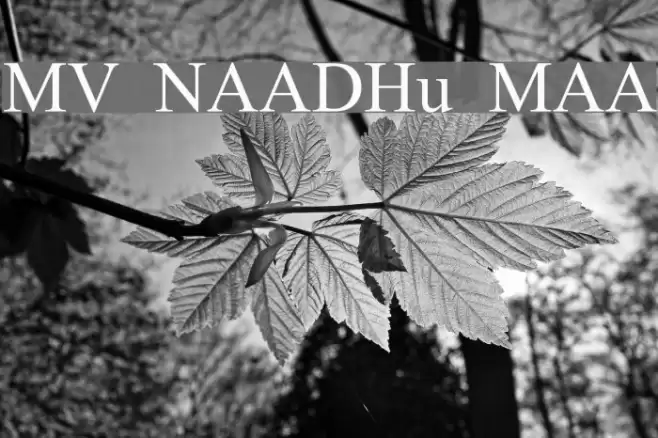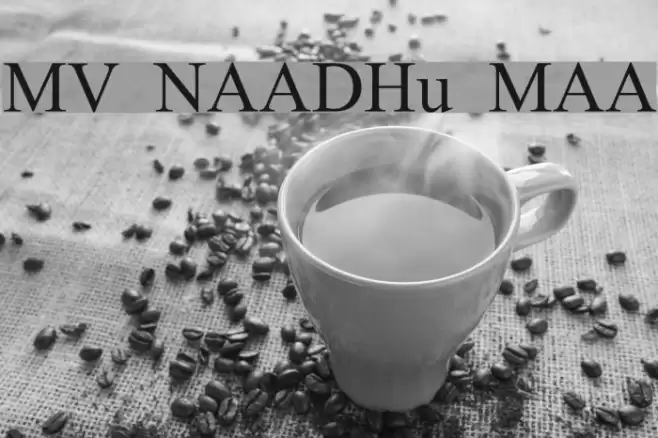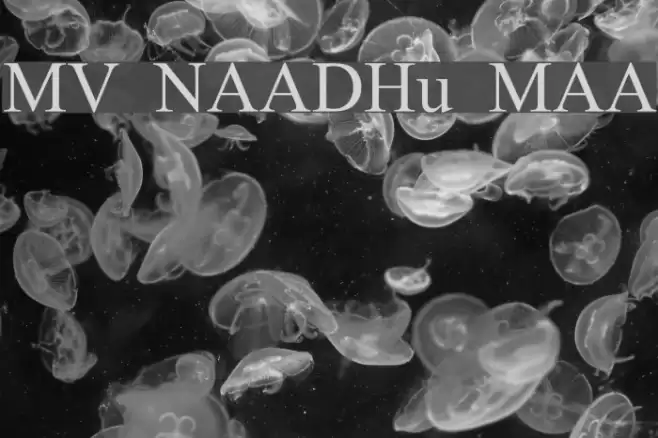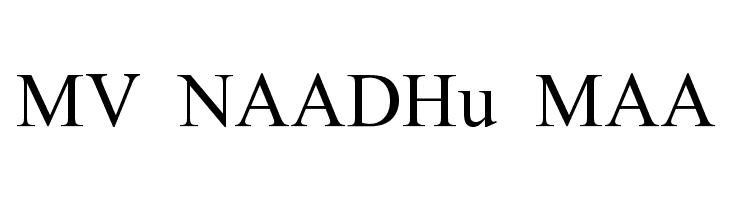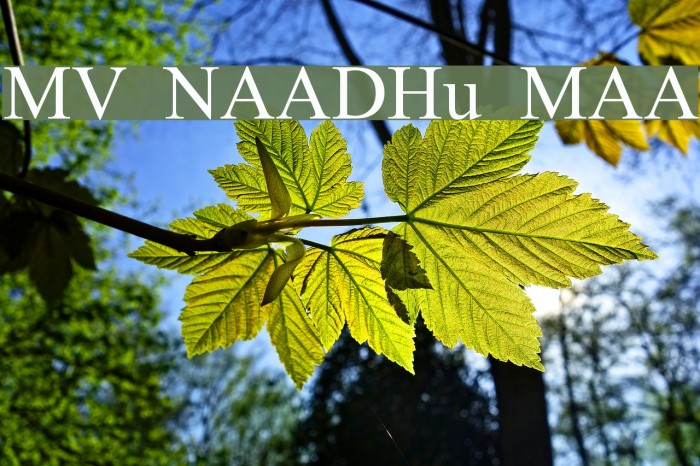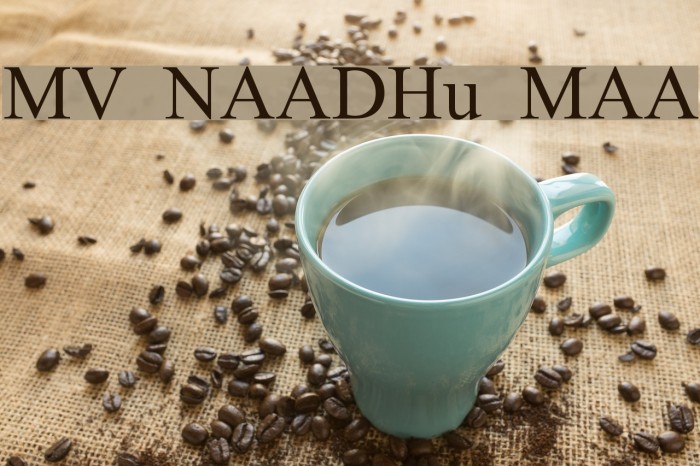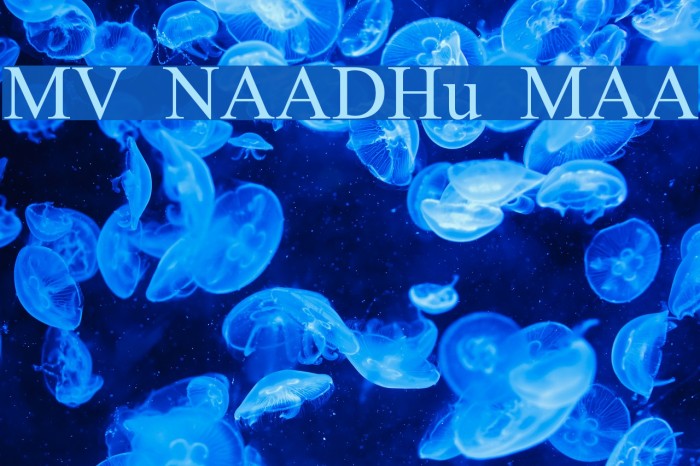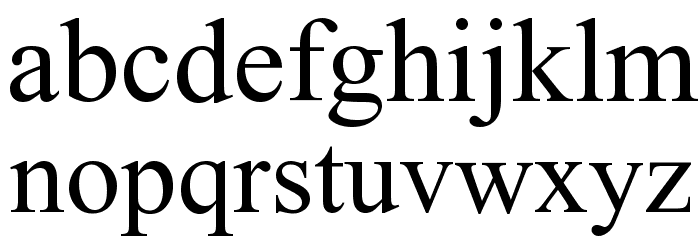
MV NAADHu MAA Font
MV NAADHu MAA Description
This font exhibits a classic serif style with a touch of elegance and sophistication. The uppercase letters are bold and commanding, while the lowercase letters maintain a refined and balanced appearance. The numerals are uniquely designed with decorative floral elements, adding a playful yet sophisticated touch. The special characters are consistent with the overall style, featuring clean lines and subtle embellishments. This font is versatile, suitable for both formal and creative projects, offering a timeless appeal with its traditional serif characteristics.
A classic serif font with decorative numerals and elegant styling from Uncategorized fonts.
- Proposed Projects: Ideal for wedding invitations, luxury branding, editorial design, and decorative print materials.
- Overall Style: Classic
- Use Case: Headlines, Logos, Decorative text